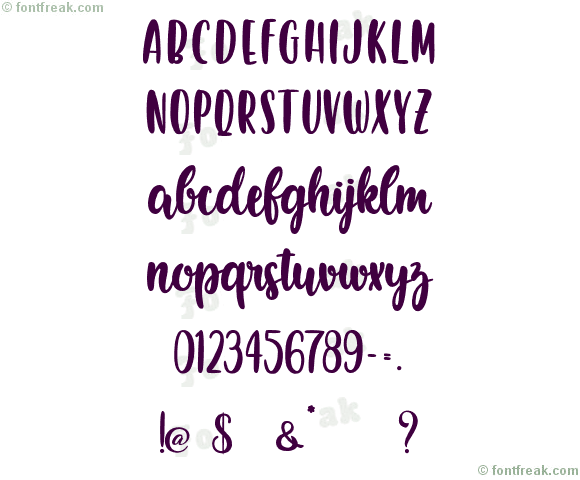
Victory Racket - Personal Use
About Victory Racket - Personal Use
Victory Racket - Personal Use is a captivating display font designed by Suthi Srisopha, characterized by its playful and whimsical style. This font falls into the decorative category, making it a perfect choice for projects that require a lively and engaging aesthetic. The strokes exhibit a medium weight with gentle contrasts, providing a friendly and approachable appearance. The letters feature a slightly irregular baseline that adds to the handwritten feel, giving it a unique charm. The spacing between characters is well-balanced, ensuring readability while maintaining a casual vibe.
This font is ideal for a variety of creative applications. It shines in wedding invitations, where its charming character can evoke a sense of joy and celebration. Additionally, it works wonderfully for movie posters, lending a fun and eye-catching element that captures attention. Restaurant menus can benefit from Victory Racket, as its playful design can enhance the overall dining experience, making it more inviting. For content creators, this font can be a fantastic choice for social media graphics, adding a personal touch to posts and stories.
What sets this font apart is its delightful blend of playfulness and elegance, making it a versatile tool for creative expression. The Victory Racket - Personal Use font free download offers a unique opportunity to elevate your projects with a distinctive touch that resonates with audiences, ensuring your designs leave a lasting impression.